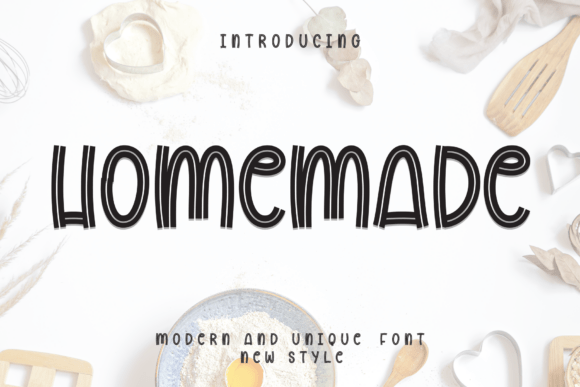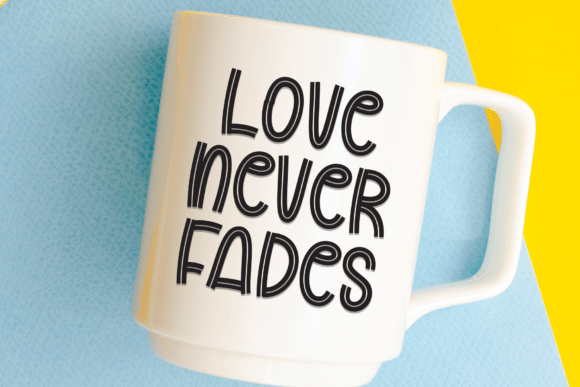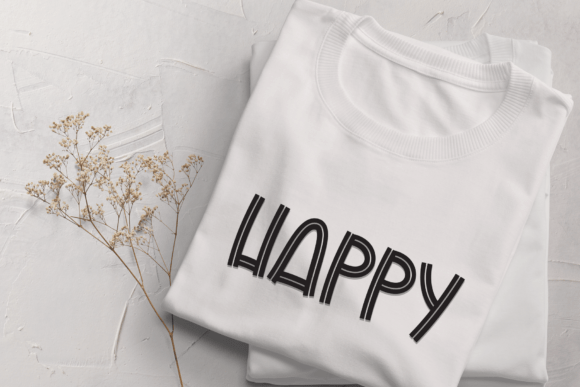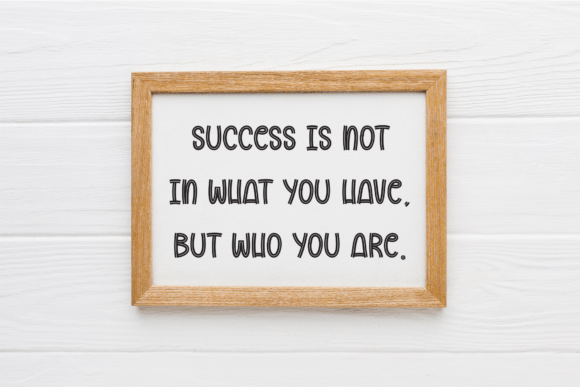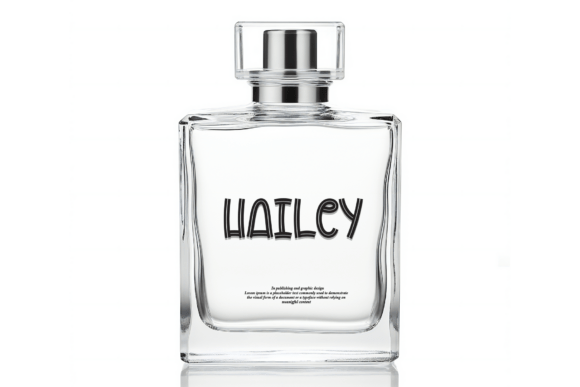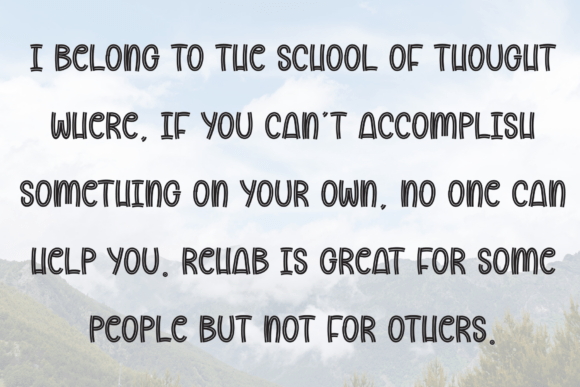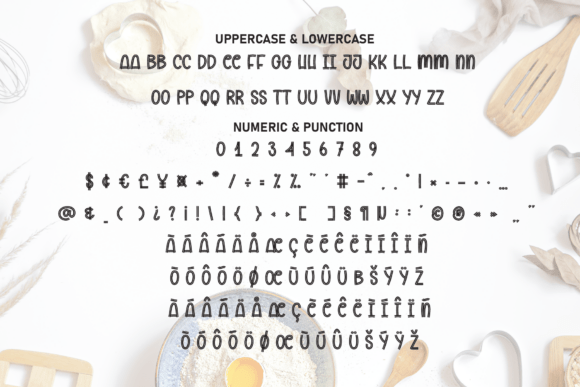
Introducing the Homemade Font: Where Whimsy Meets Design
Have you ever found yourself scribbling notes in the margins of a notebook, only to discover that your handwriting has transformed into a work of art? That’s exactly the kind of magic that the Homemade Font embodies – a charming handwritten display font that brings warmth and sweetness to any design project.
Perfect for wedding invitations, cards, and other special occasions, this delightful font is sure to captivate and delight. Its whimsical touch sparks creativity and adds a unique, engaging element to any design. Whether you’re a seasoned designer or just starting out, the Homemade Font is an essential tool in your creative arsenal, offering a fresh and playful way to express yourself.
With its irresistible fun and charm, the Homemade Font is the perfect addition to any design project. Its value lies in its ability to add a personal touch and make your designs stand out from the crowd.
Key Features of Homemade Font
- Font Family: Homemade Font is a sans-serif font family that includes multiple styles, including Regular, Italic, Bold, and Bold Italic.
- Size: The font family includes a range of sizes, from 8pt to 72pt, making it suitable for various design applications, including body text, headings, and titles.
- Unique Characteristics: Homemade Font features a distinctive, hand-drawn aesthetic with rounded edges and a friendly, approachable feel, making it ideal for creative and informal designs.
Review: Homemade Font
Overall, I’m quite impressed with Homemade Font. It’s a unique, hand-crafted typeface that adds a personal touch to any design project. ✨ The font’s imperfections and irregularities make it stand out in a world of perfect digital fonts. It’s perfect for creating a cozy, homespun feel in branding, packaging, or editorial design.
The font’s versatility is another major plus. It comes in a range of weights, from light to bold, making it suitable for a variety of applications. ✨ Additionally, the font’s high x-height makes it easy to read, even at smaller sizes.
However, there are some limitations to consider. ⚠️ The font’s irregularities can sometimes make it difficult to use in situations where precision is key, such as in body text or headlines that require a high level of legibility. Additionally, the font may not be suitable for use in very small sizes or on low-resolution screens.
Here are some of the font’s key features:
- Unique, hand-crafted design
- Versatile range of weights
- High x-height for easy readability
- Perfect for branding, packaging, and editorial design
Overall, I’d highly recommend Homemade Font for designers looking to add a touch of personality to their projects. While it may have some limitations, its unique charm and versatility make it a valuable addition to any design toolkit.